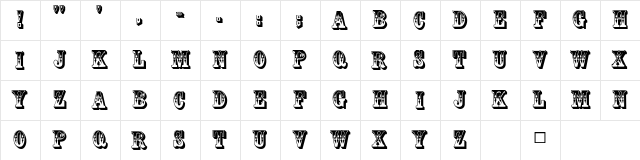
CoffeeTin Initials
Design Context for CoffeeTin Typeface
CoffeeTin is a composed and adaptable typeface that performs quietly and consistently across a wide range of design contexts.